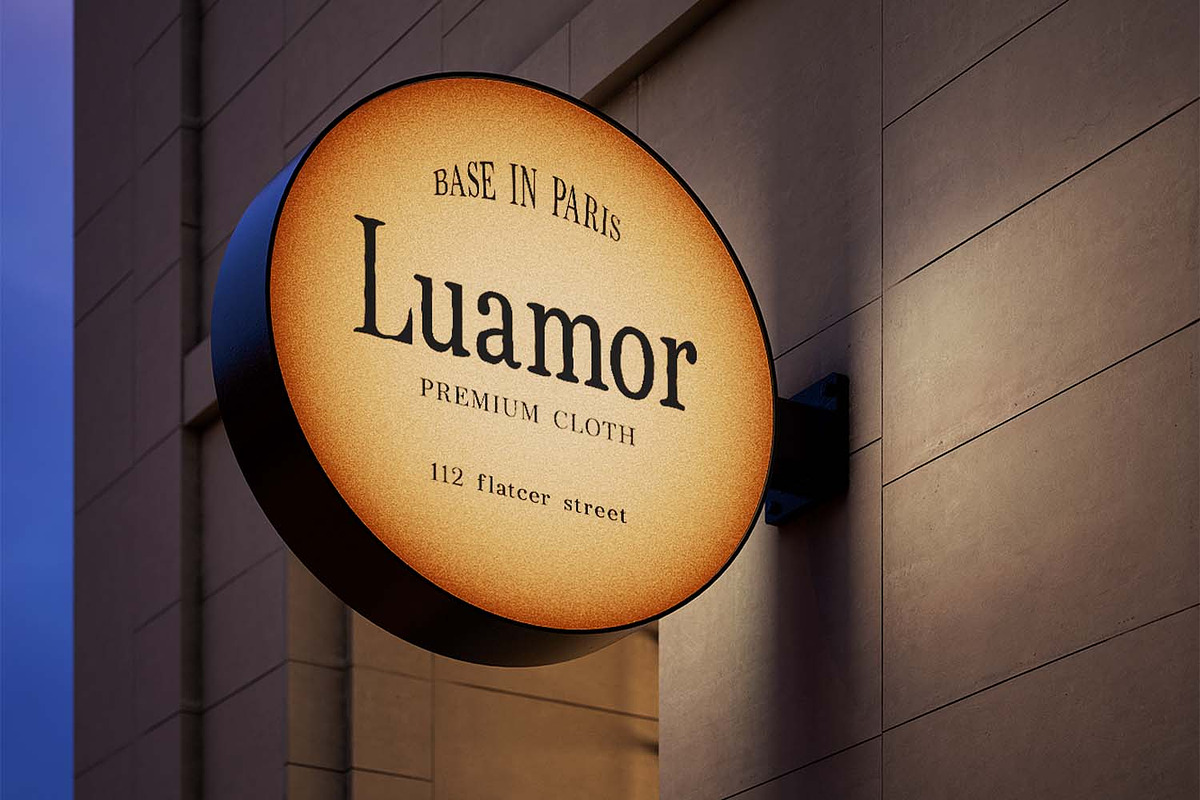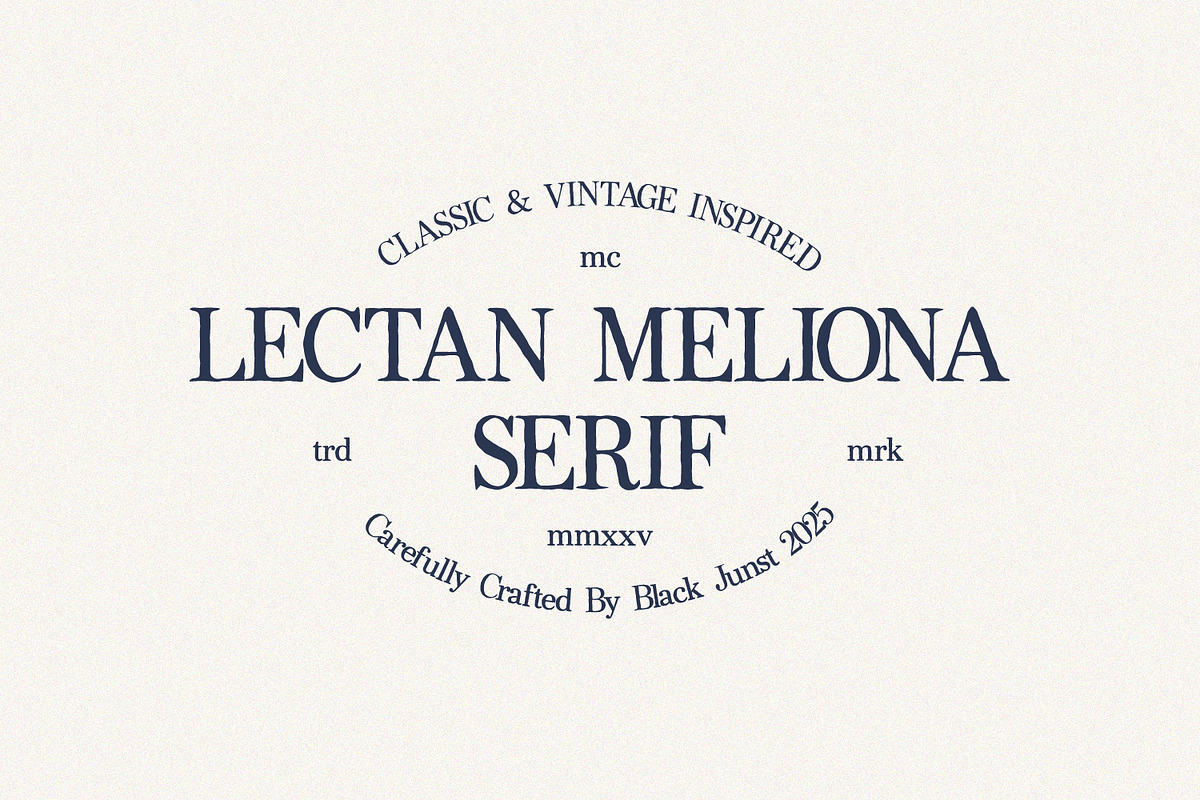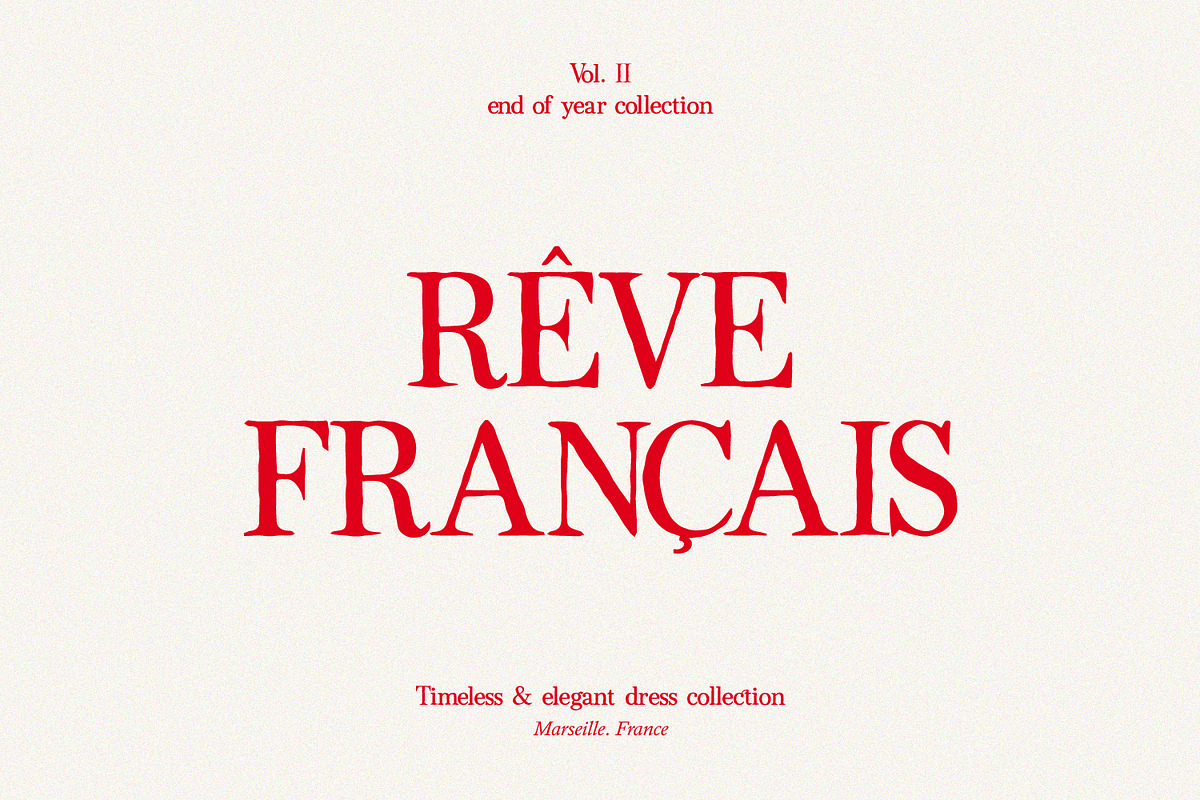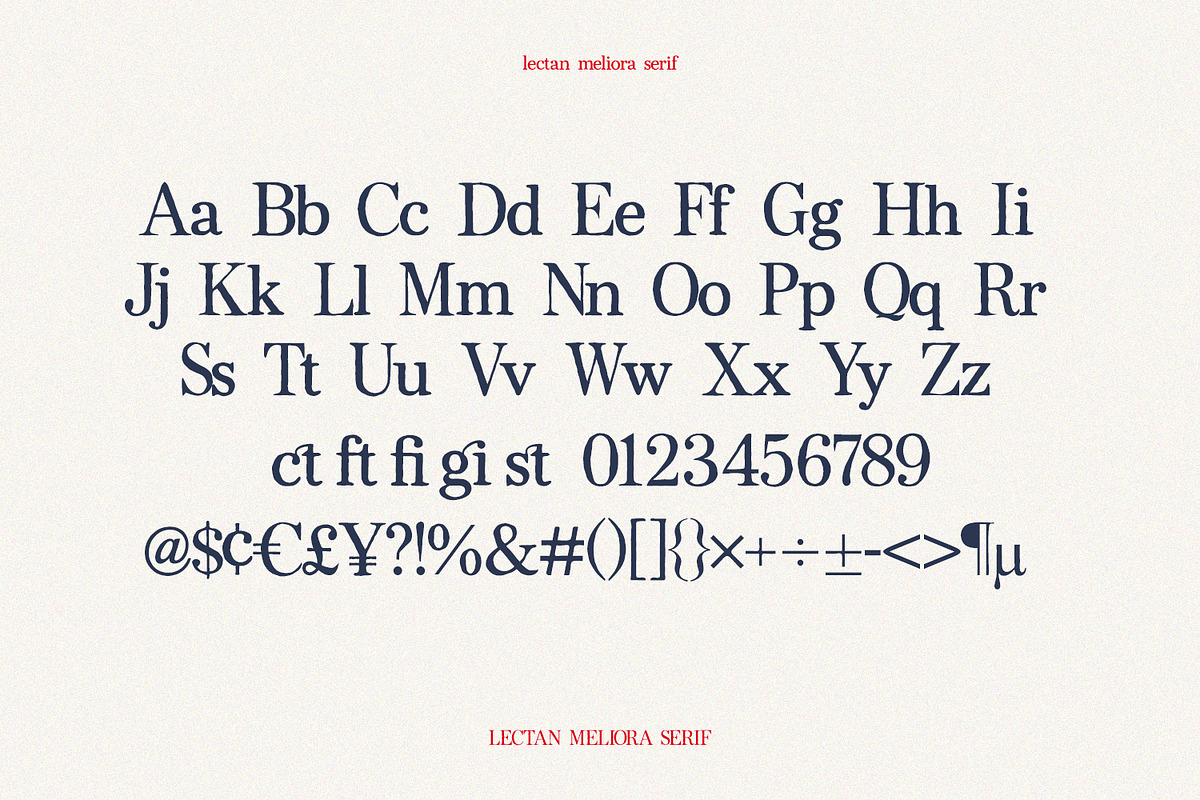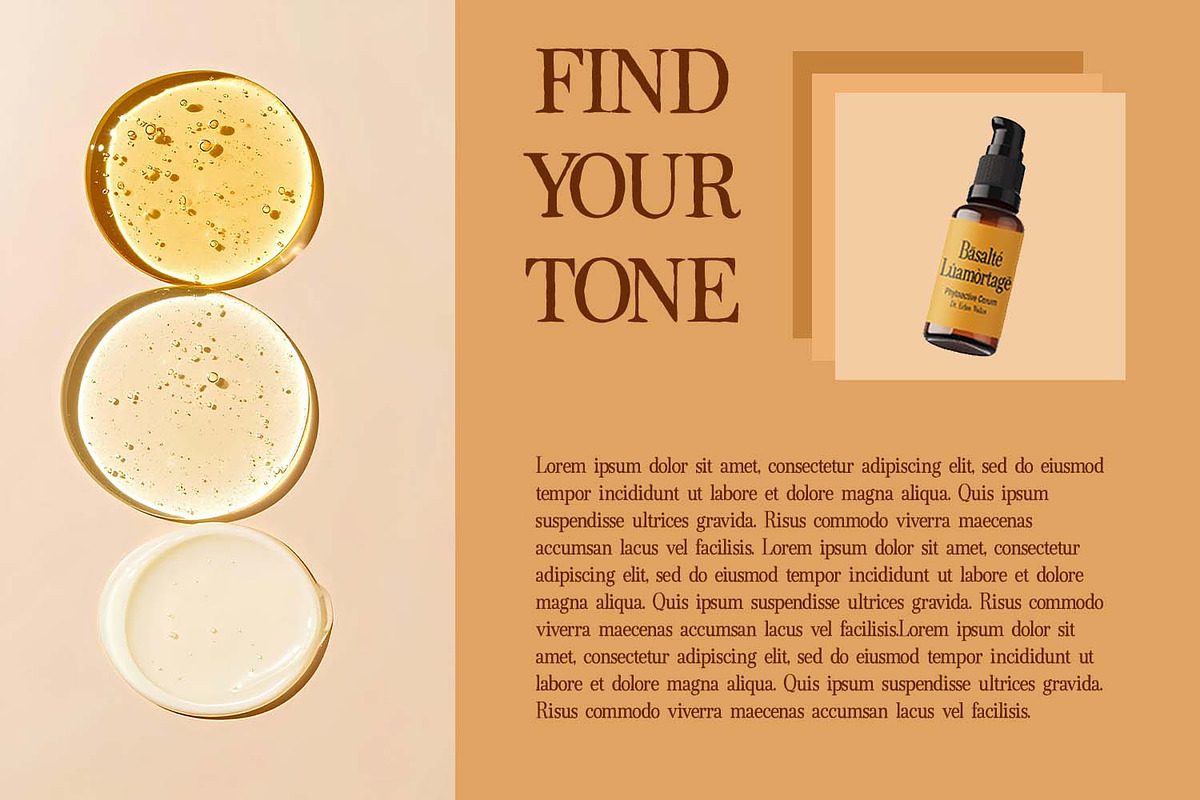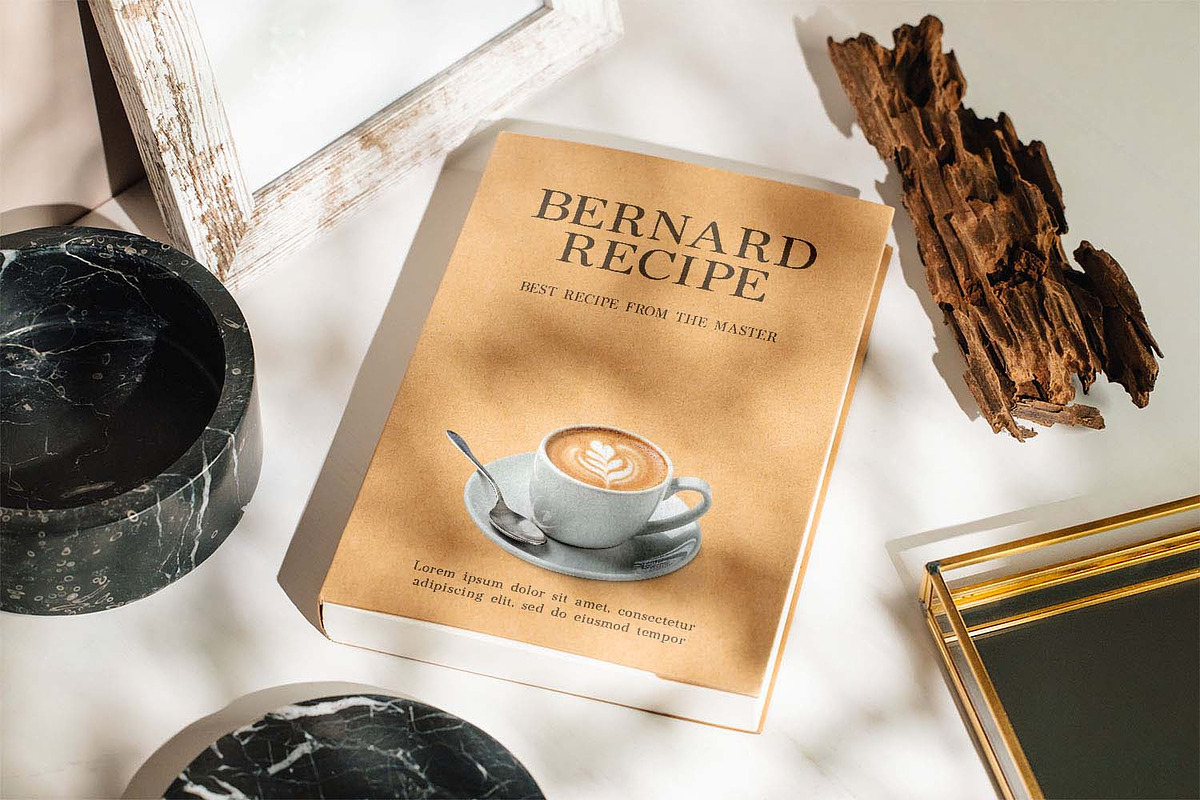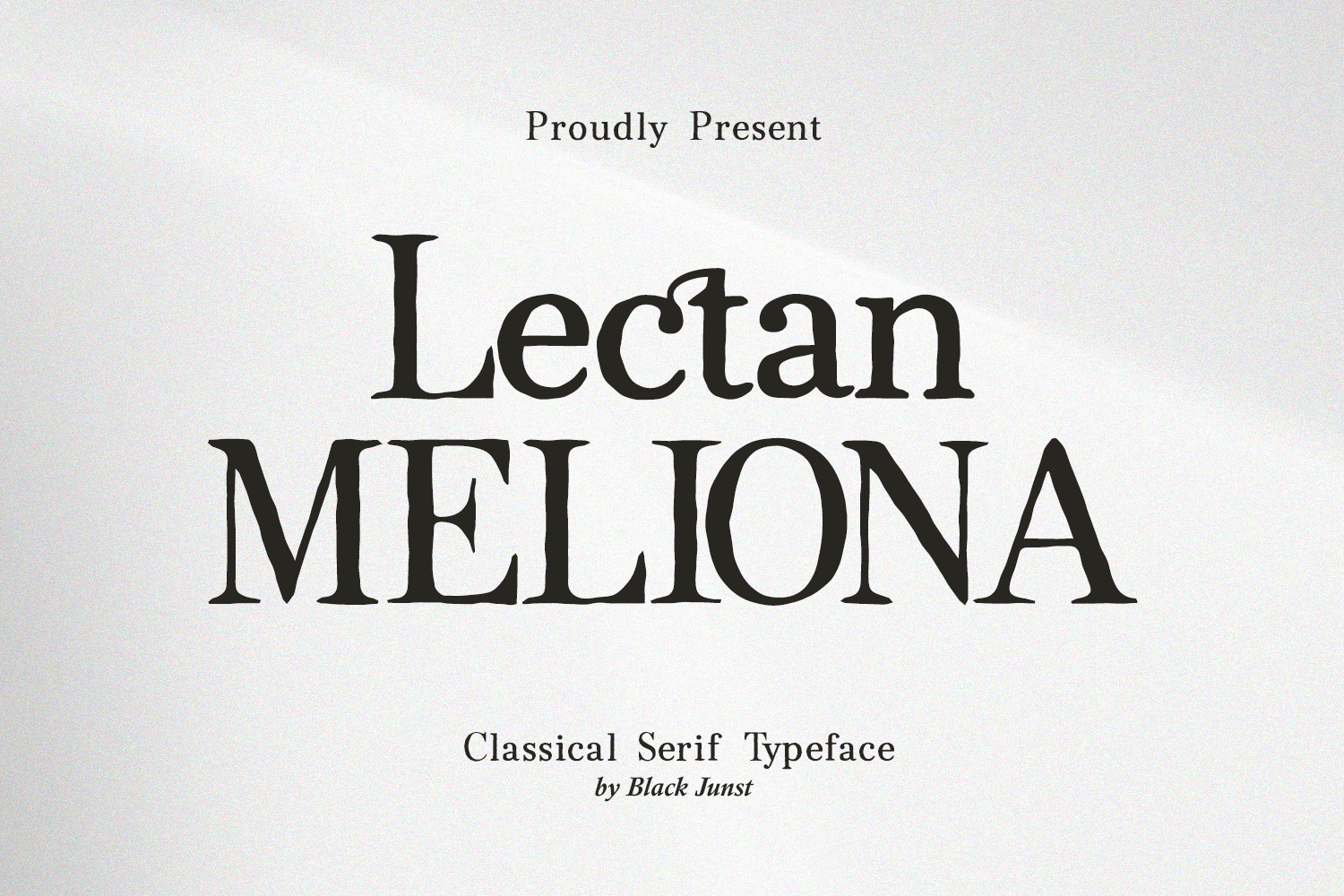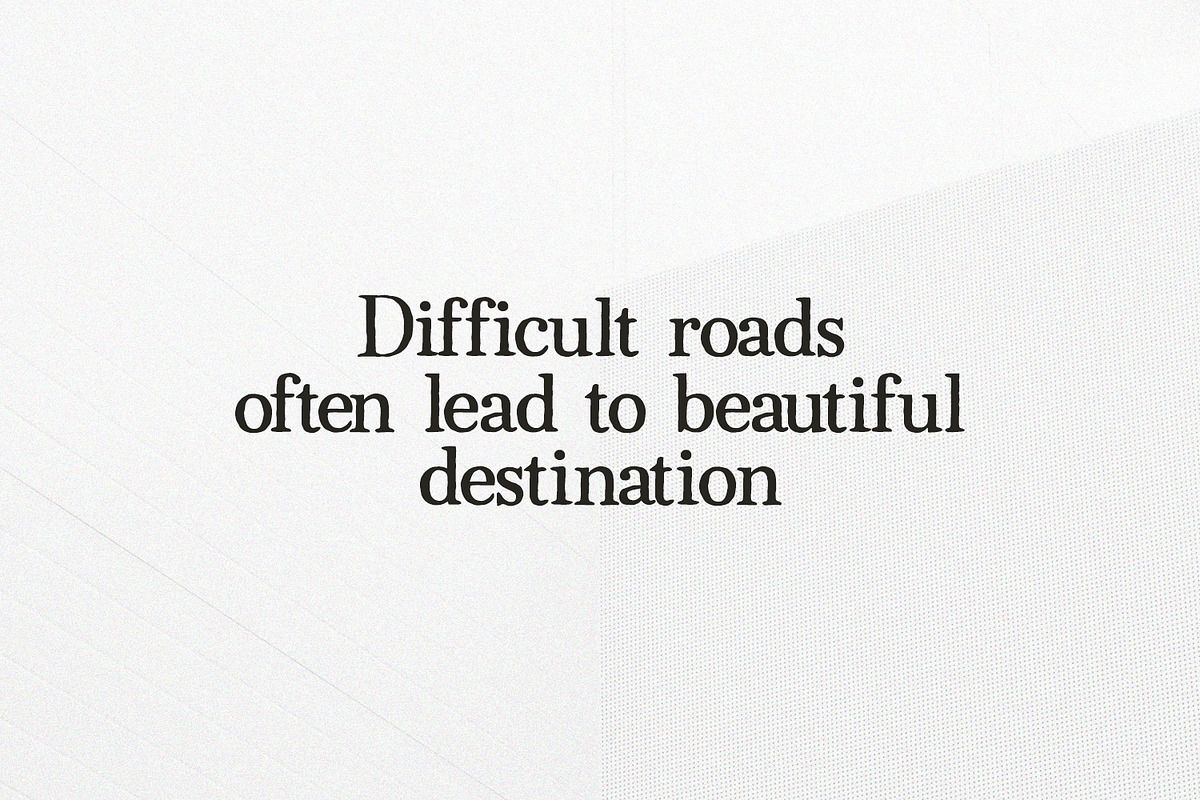
Lectan Meliona – Handmade Serif Font
Luxury look. Strong character. Timeless value.
Lectan Meliona is a luxury handmade classic serif font designed to instantly give your designs a premium, professional, and exclusive feel. Inspired by classic editorial typography, high-fashion branding, and vintage serif aesthetics, this typeface is crafted with precision to capture attention, build trust, and elevate a brand’s visual value.
Each letter features elegant contrast, strong serifs, and artistic forms, making it an excellent choice for premium logos, high-end brand identities, editorial magazines, fashion labels, wedding invitations, luxury packaging, and bold display headlines. Lectan Meliona is a premium serif typeface for designers who want to stand out—more elegant, more confident, and more marketable.
Lectan Meliona is not just a font — it’s a visual weapon to make your designs feel high-end and confident from the very first glance.
- Unique ligatures for a natural flow
- Stylistic alternates